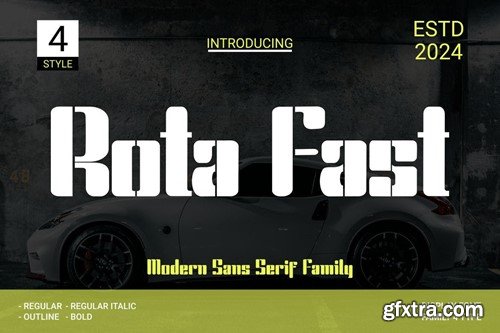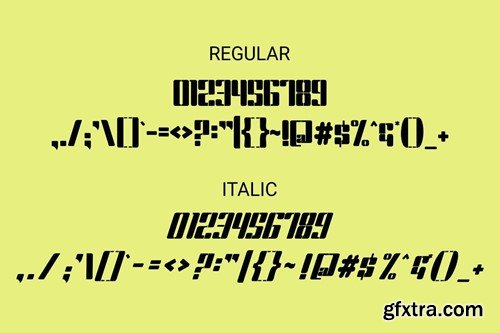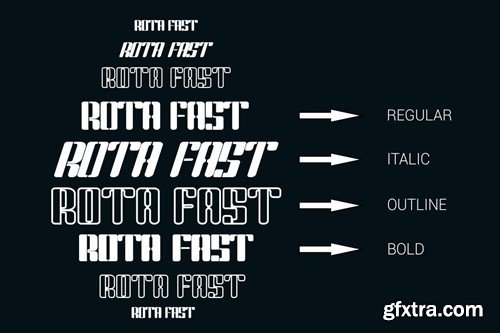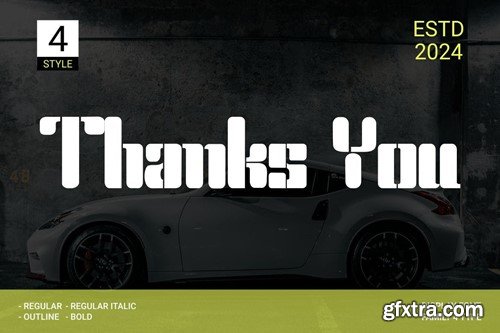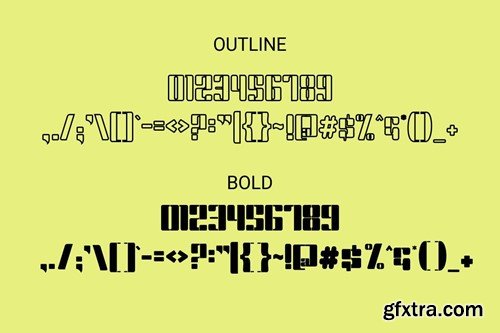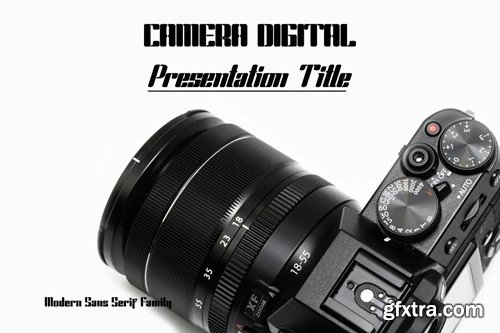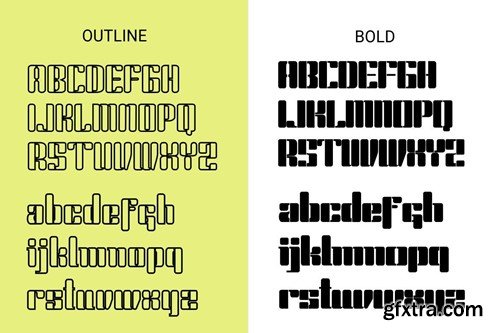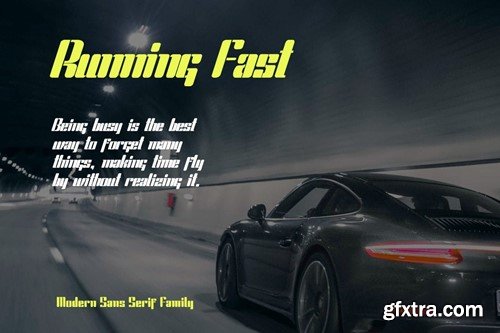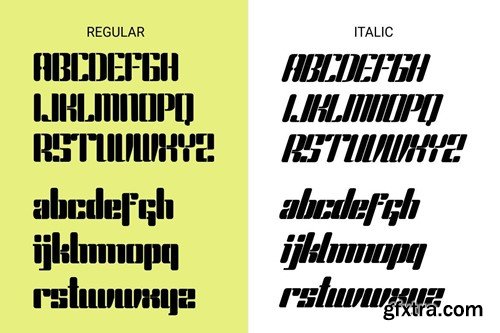
罗塔快 - 现代无衬线字体系列家族Font 6HAQT78
RotaFast - Modern Sans Serif Family Font
Proudly present our new product RotaFast - Modern Sans Serif Family Font is a modern and authentic font. Perfect for professional needs and product branding, this font is suitable for any branding project such as quotes, logos, blog headers, posters, ribbons, letters, invitations, stationery, etc... Designed to be versatile and flexible that can be used on a variety of projects and media. extraordinary in a variety of contexts. Available In file form for download Otf Ttf Uppercase If you have any questions, queries or concerns please do not hesitate to contact us directly. Appearance and cover image Not included in the download file, just for presentation purposes only.